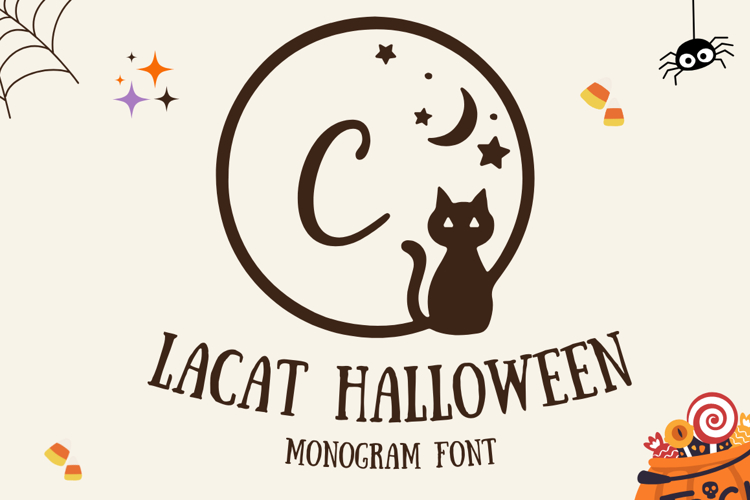
Meet Lacat Halloween — a spooky-cute monogram font made for effortless initials. Each glyph places a letter inside a round night-sky frame featuring a black cat, moon, and stars. It’s friendly, legible, and built for crafters who want fast, consistent Halloween badges without manual layout.
Type an initial and you instantly get a finished Halloween emblem. Use the empty frame to place your own icons or compose layered designs. Perfect for quick sets, labels, and themed stationery across your seasonal packs.